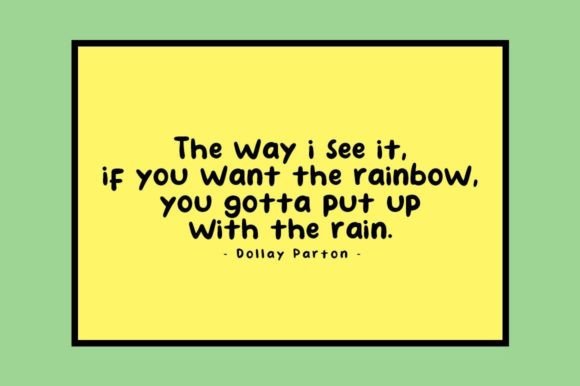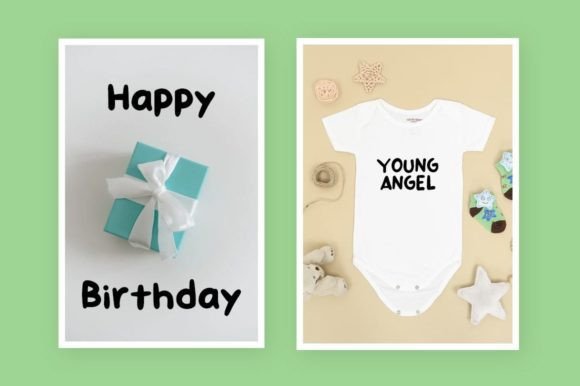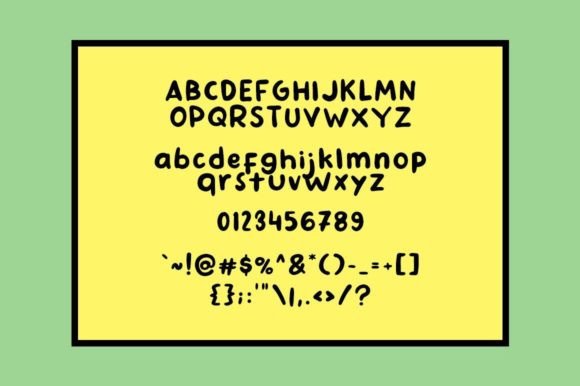
Introduction to Hansip Font
You know that moment when you’re working on a creative project, and you just can’t seem to find the right font to bring your design to life? You’ve scoured through countless options, but nothing seems quite right. Well, we’ve got some exciting news for you – we’ve discovered a game-changing font that’s sure to elevate your designs and make your creative process a breeze.
Meet the Hansip Font, a modern and quirky handwritten font that’s perfect for posters, logos, magazines, book covers, banners, and more! This high-quality design resource is a must-have for any designer looking to add a touch of personality to their work.
Key Features of Hansip Font
- Hansip Font is a high-quality, free design resource ideal for creative projects requiring a unique and modern touch.
- Hansip Font features a clean and minimalist design, suitable for use in various creative projects, such as logos, typography, and branding materials.
- The font family includes a range of styles and weights, offering designers the flexibility to choose the perfect fit for their project.
- With its high resolution and crisp typography, Hansip Font is perfect for use in both digital and print design projects.
Honest Review: Hansip Font
I recently had the opportunity to work with the Hansip Font, and I must say, it’s been a great addition to my design resources. The font is completely free to download, which is always a plus, especially for smaller creative projects where budgets can be tight.
What works well: ✨ The Hansip Font has a very high quality feel to it, with crisp lines and a clean design. It’s perfect for projects where you want a modern, professional look. I also appreciate that it has a transparent background, making it easy to layer over other design elements. Additionally, the font is highly versatile and can be used for a wide range of creative projects, from logos to web design.
What doesn’t work so well: ⚠️ One thing I’ve noticed is that the font can be a bit tricky to read at smaller font sizes. However, this is a minor complaint, and I’ve found that it’s easily rectified by increasing the font size or adjusting the line spacing.
Overall, I’m very impressed with the Hansip Font. It’s a great design resource that’s perfect for anyone looking for a high-quality, free font. I highly recommend it for any creative project.
Hansip Font: A High-Quality Design Resource
Getting the Most Out of Hansip Font
To get the most out of Hansip Font, use it for high-quality designs with transparent backgrounds, such as logos, icons, and graphics. You can also use it for creative projects, like typography-based art and design experiments.
Common Use Cases for Hansip Font
Hansip Font is commonly used for creative projects, such as graphic design, typography, and branding. Its high-quality design and transparent background make it perfect for presentations, documents, and social media graphics.